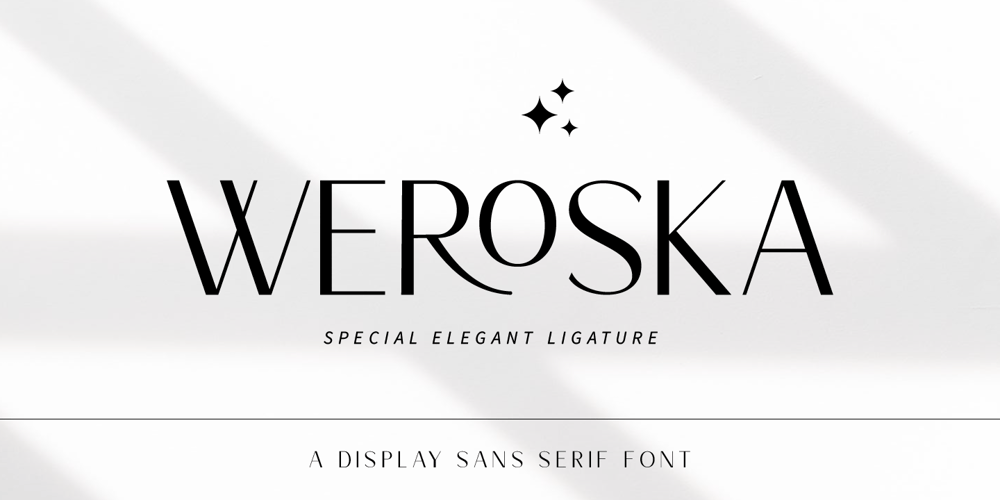
Weroska Font Family was designed by Hayinah and published by Rockboys Studio. Weroska contains 1 styles and family package options. Weroska is a modern sans serif typeface known for its clean, minimalistic design. It typically features geometric shapes with a consistent stroke width, making it versatile and highly legible across various applications. The design is often characterized by slightly rounded corners, giving it a friendly and approachable appearance while maintaining a professional look. Weroska is suitable for both body text and headlines, working well in digital and print formats. Its simplicity and elegance make it a popular choice for branding, web design, and editorial projects.